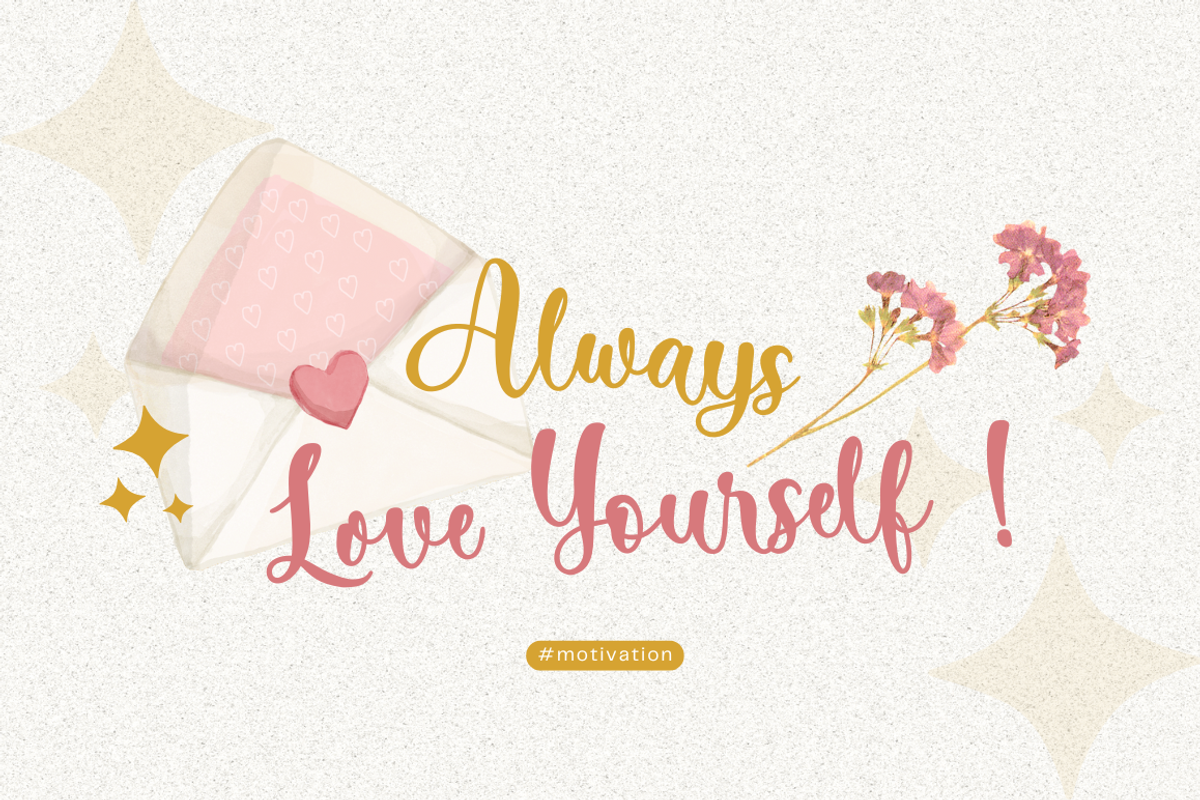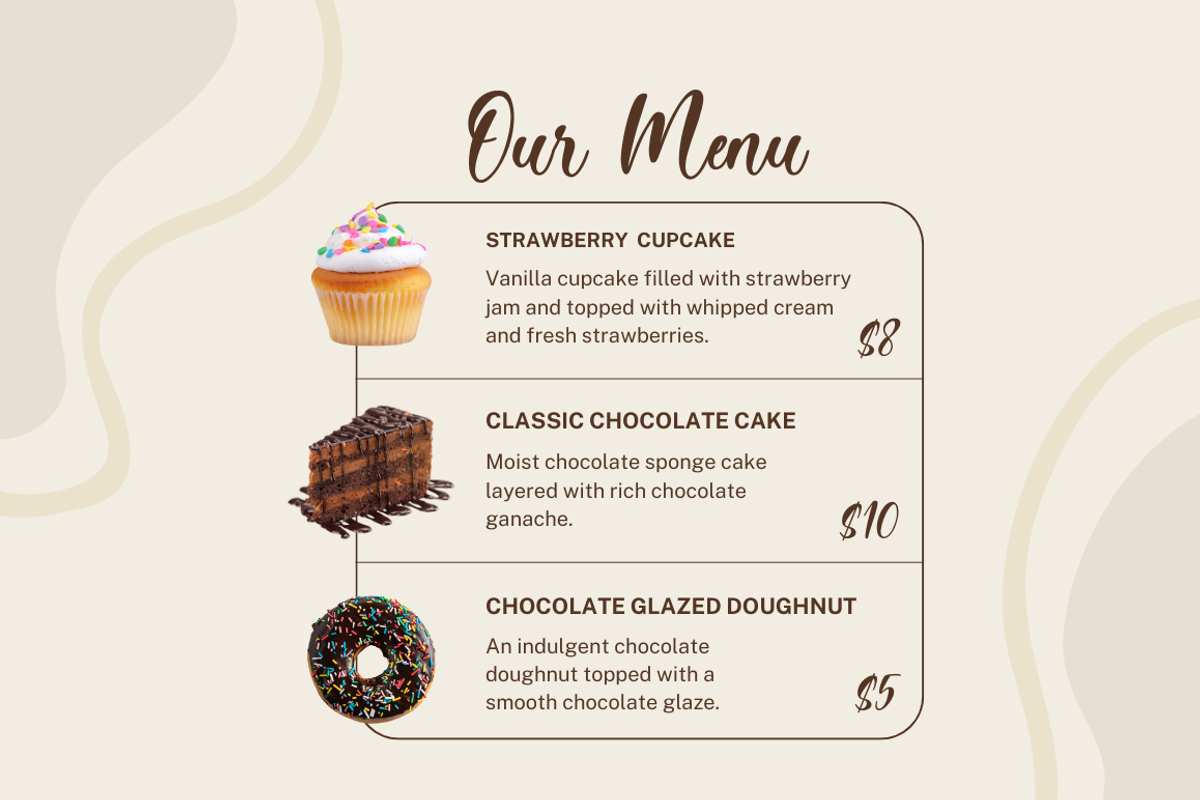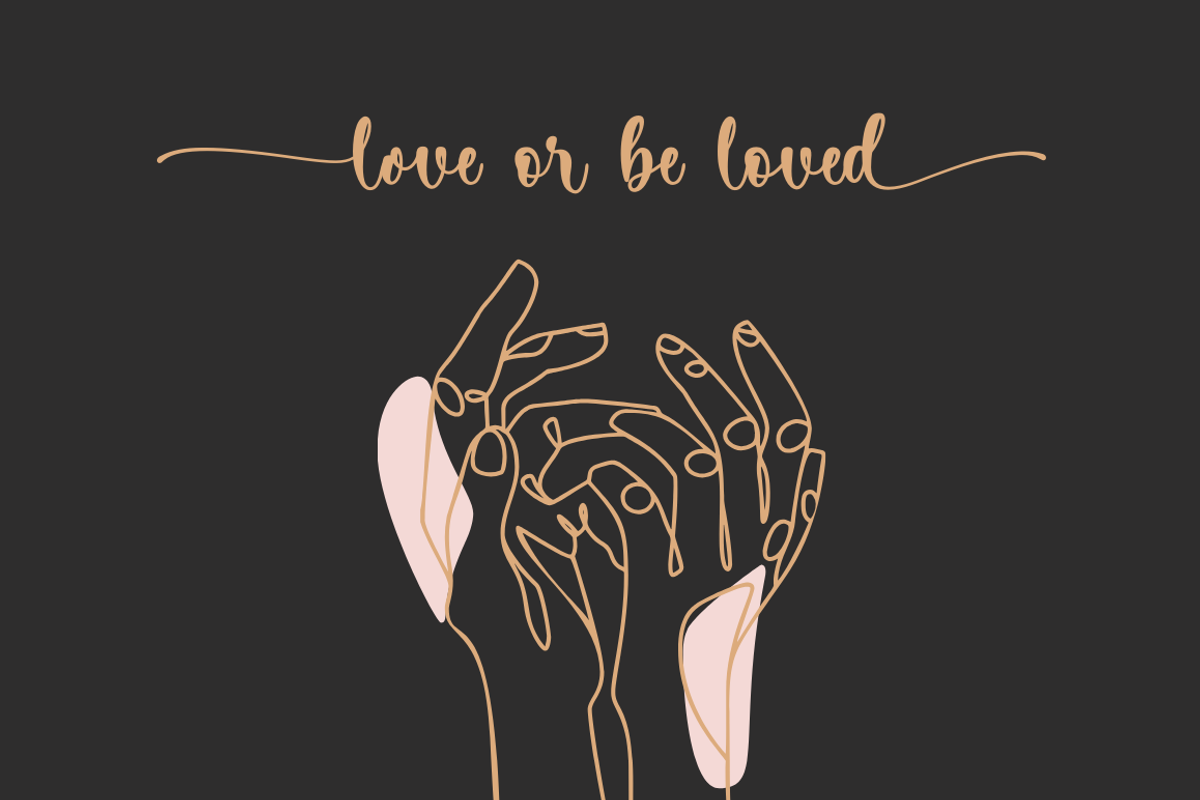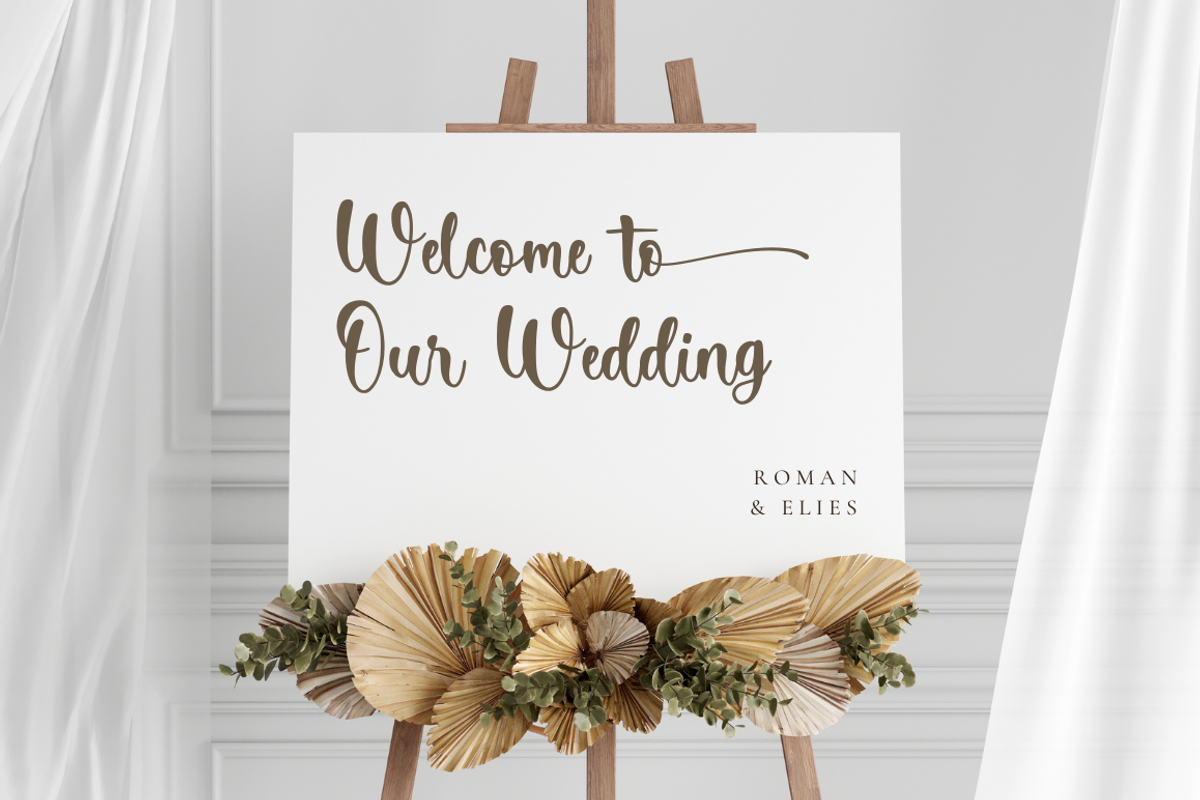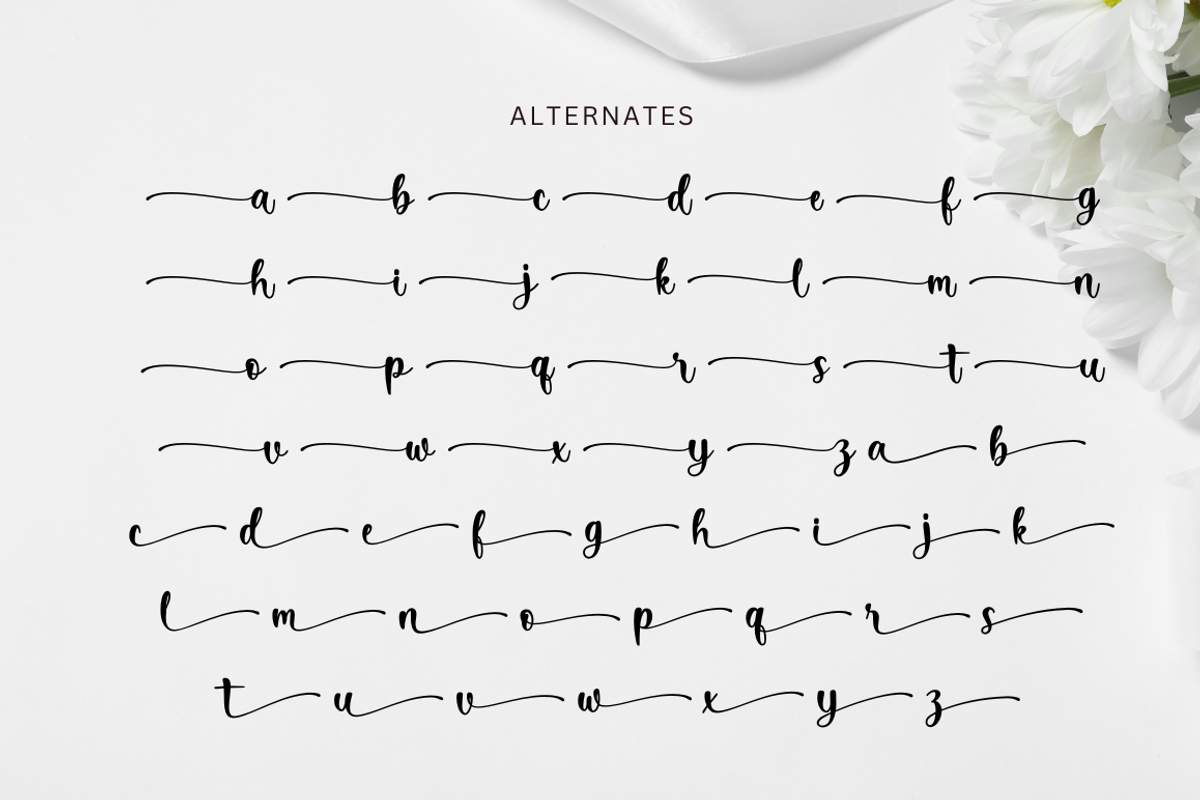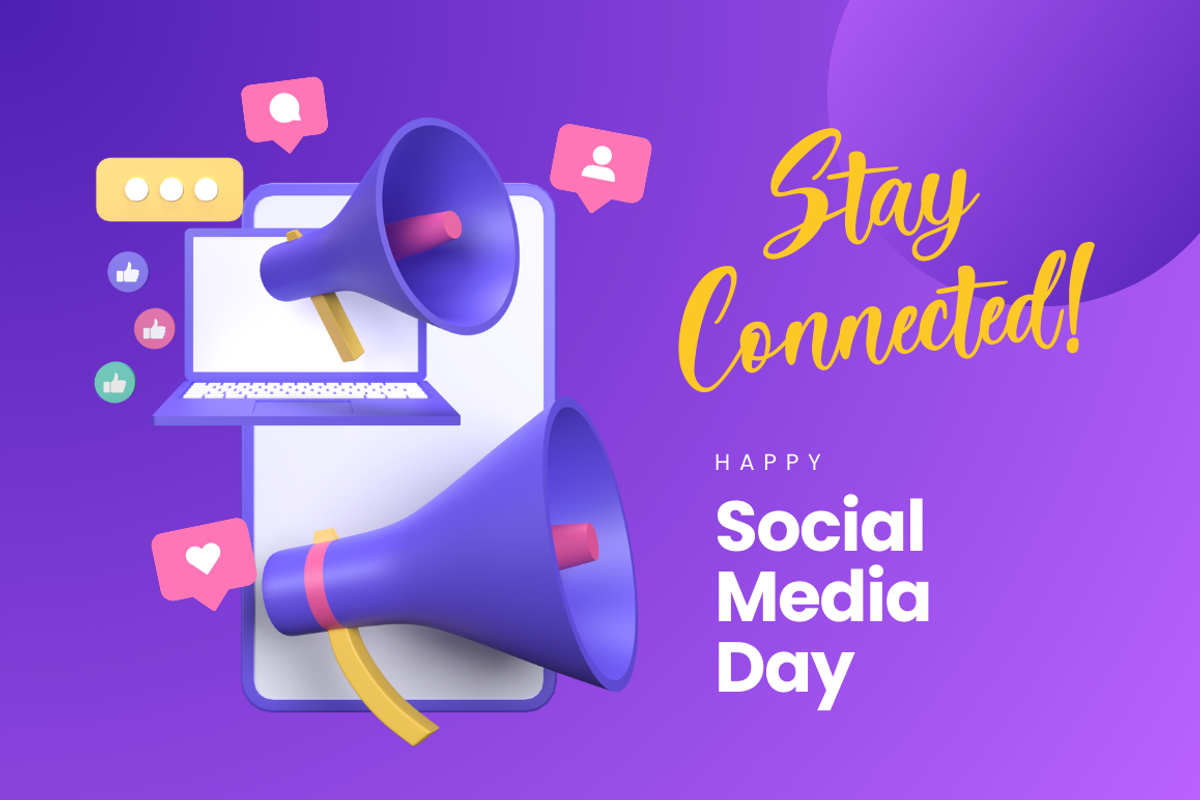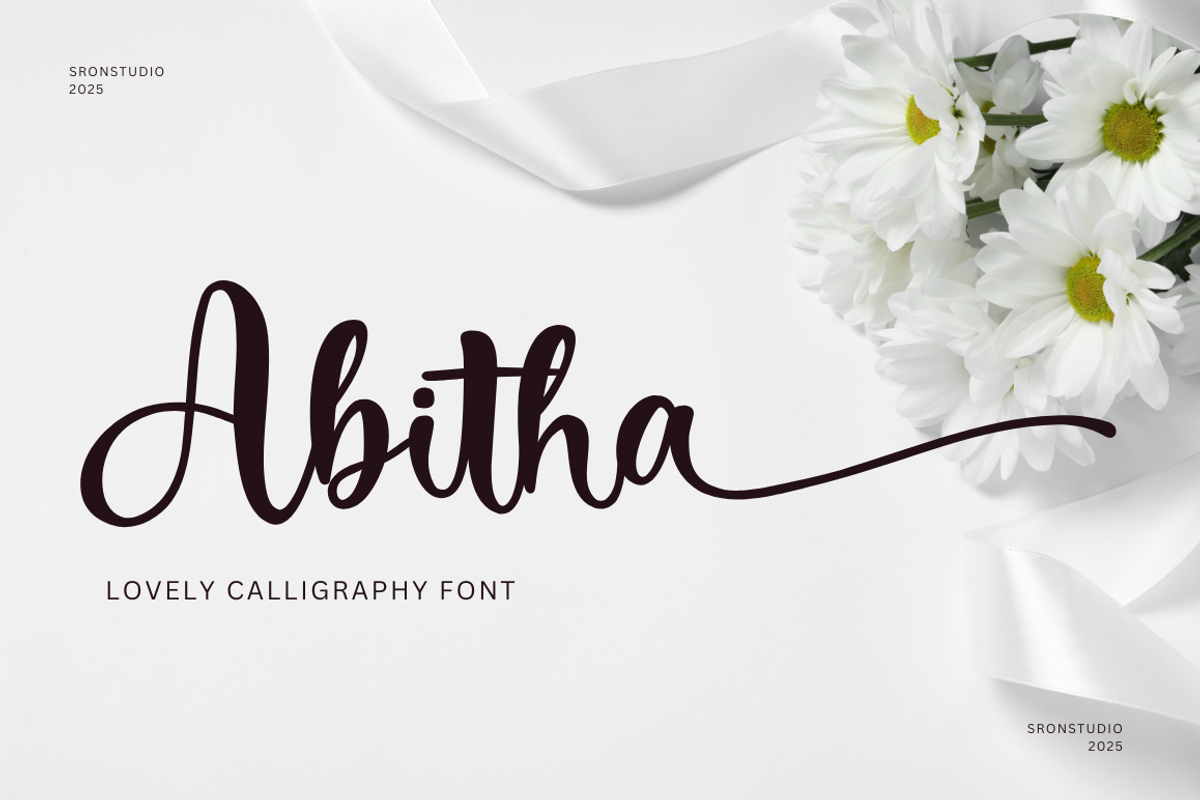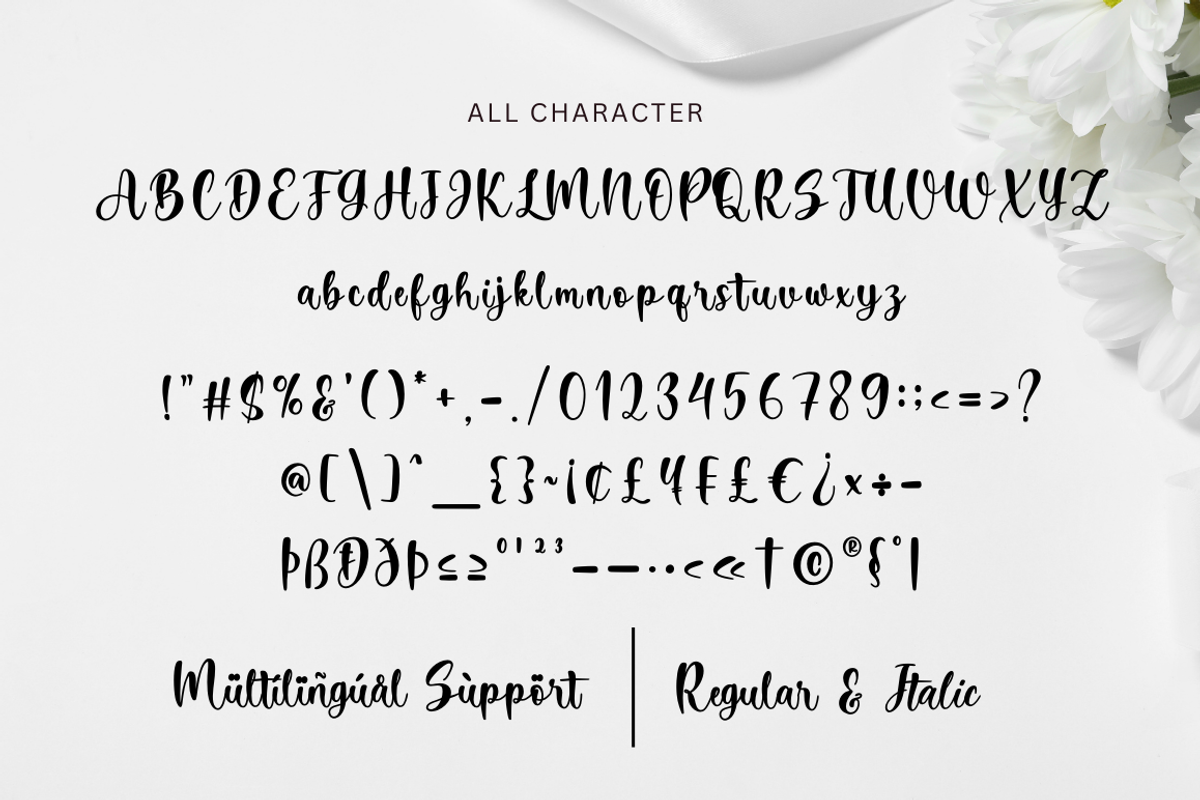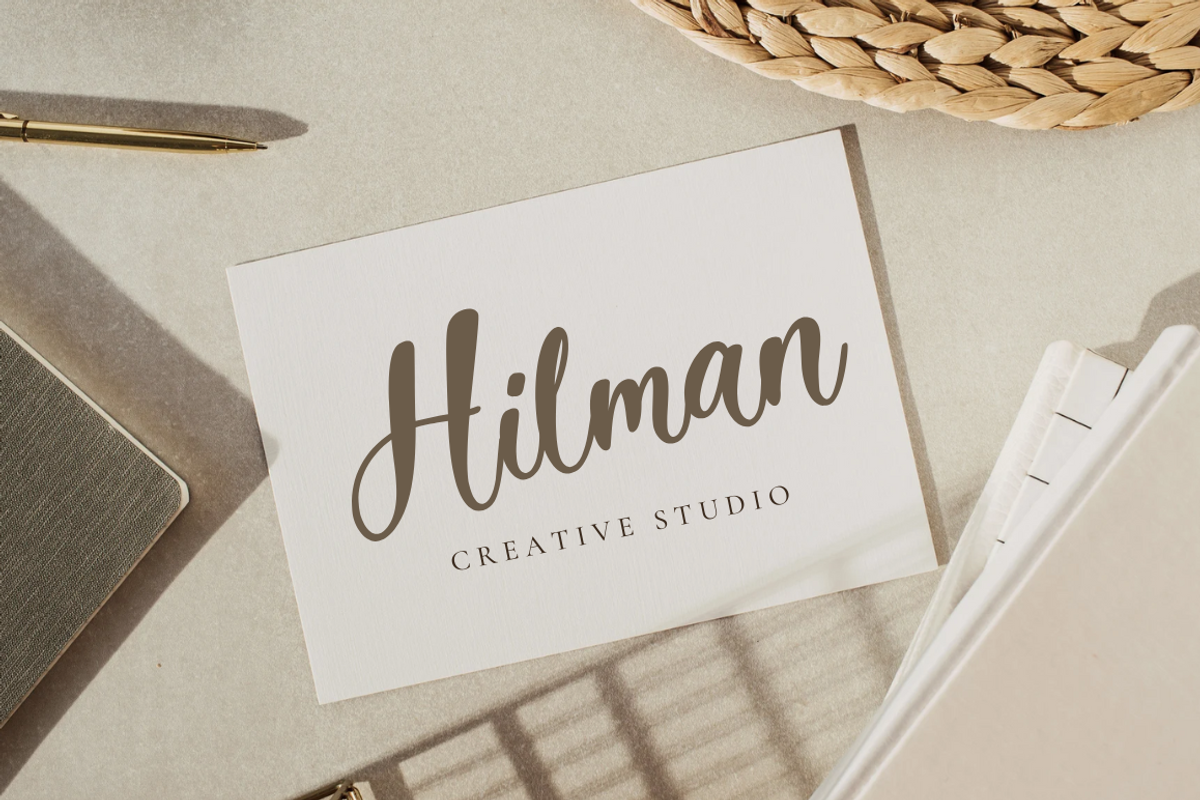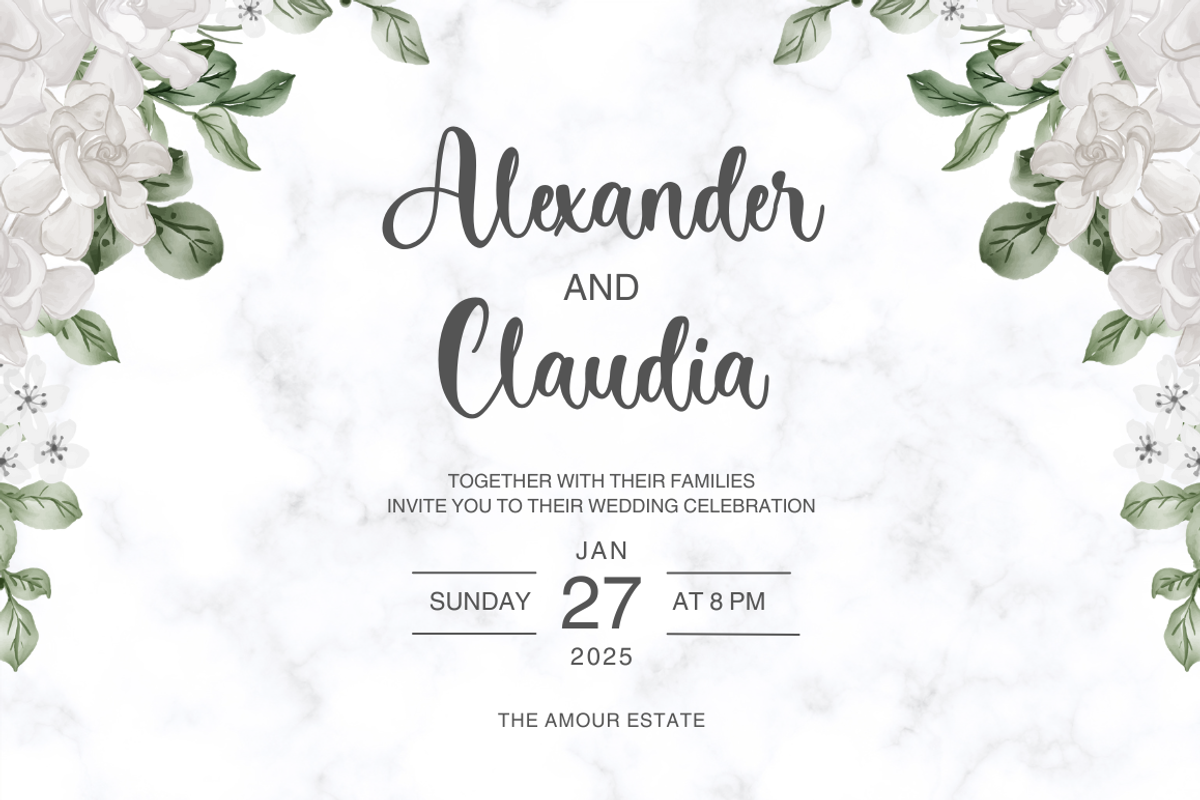
Abitha - Calligraphy Font
Abitha is a lovely calligraphy font that radiates elegance and charm. With its smooth, flowing curves and delicate strokes, this font is perfect for creating romantic and heartfelt designs. Ideal for wedding invitations, greeting cards, branding, logos, or any project that needs a touch of sophistication and beauty, Abitha adds a timeless appeal to your work. Its graceful letterforms make every word feel special and full of love.
- Regular & Italic styles
- Beautiful swashes and alternates
- Numerals & punctuation